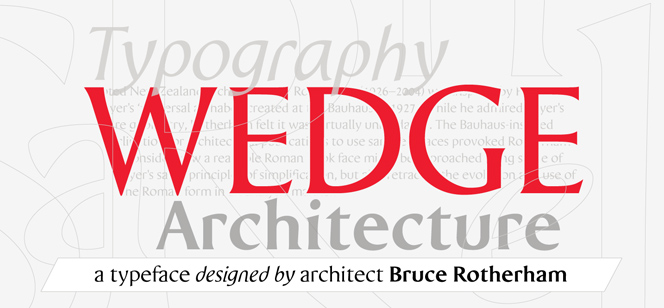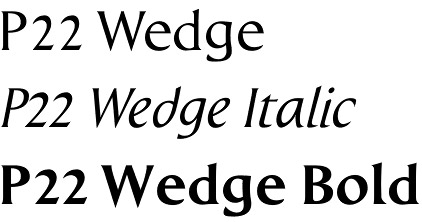
P22 Wedge font
P22 Wedge font is designed by the New Zealand architect Bruce Rotherham (IHOF type foundry) and has its roots in the early 20-th century, in the Herbert Bayer’s ‘universal alphabet’ created at the Bauhaus. Bruce Rotherham’s efforts were aimed at improving the typeface legibility. He explored the possibility how a readable Roman book face might be approached using some of Bayer’s same principles of simplification, but also retracing the evolution and use of the Roman form in an analytic manner.
The Wedge alphabet was started in 1947 when Rotherham was an architecture student at the University of Auckland. It was worked on and refined over several decades but never commercially released, until now. Despite ultimate rejection for production into metal type, the design was realized as intended and is now released in digital form, available from P22.